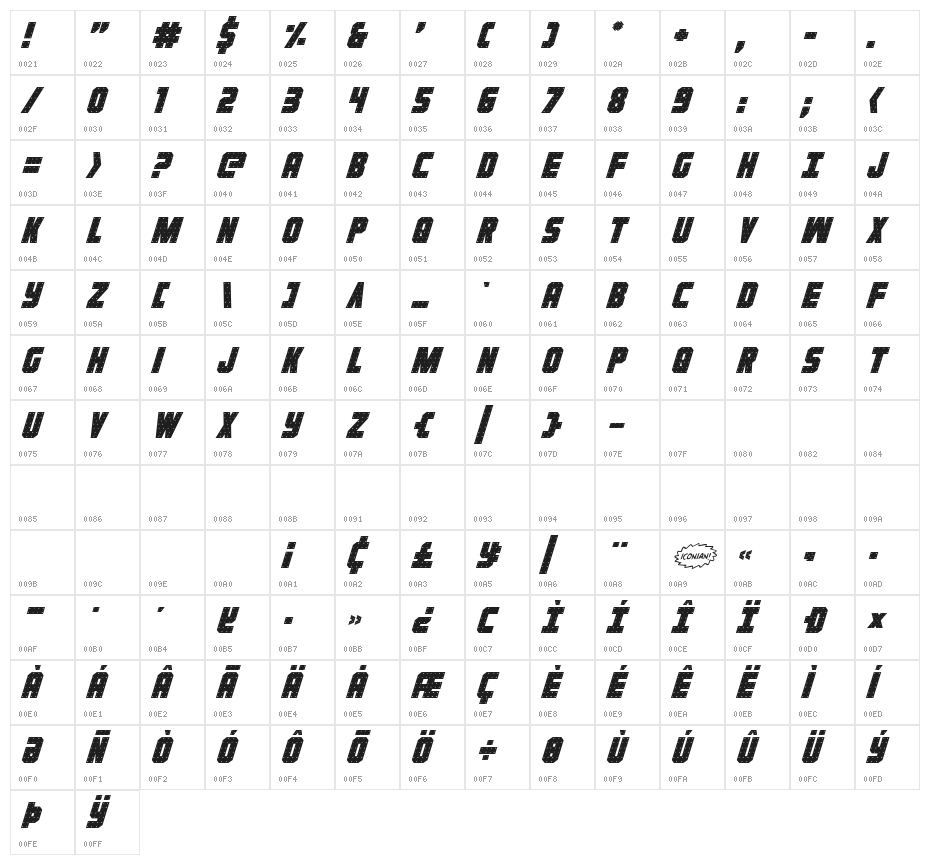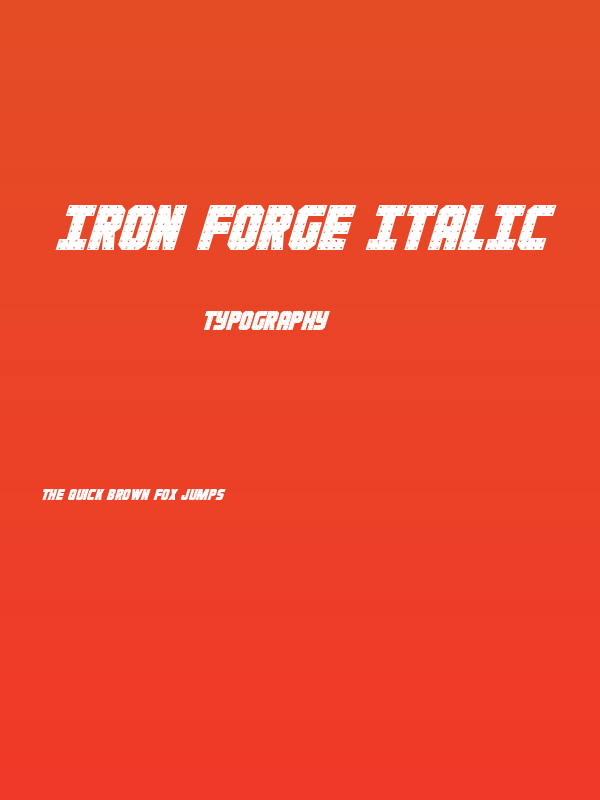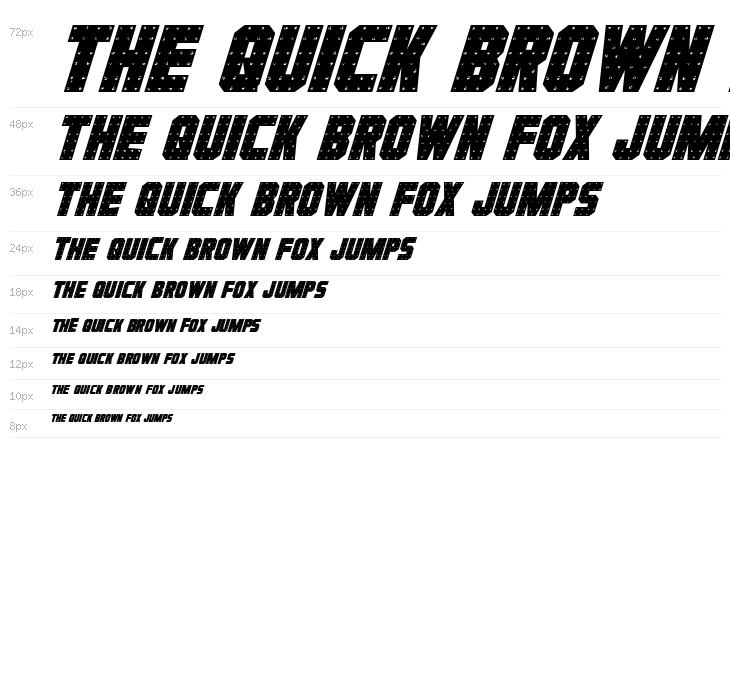
Iron Forge Italic Font
Iron Forge Italic Description
This font features a bold and dynamic design with a distinct italic slant, giving it a sense of motion and energy. The characters are constructed with a blocky, geometric style, and are filled with a pattern of small, evenly spaced dots, adding a textured appearance. The uppercase and lowercase letters maintain a consistent weight, contributing to a cohesive look. The numerals and special characters follow the same design principles, ensuring uniformity across all glyphs. This font's unique style makes it stand out, ideal for projects that require a strong visual impact.
Proposed ProjectsIdeal for posters, sports branding, video game titles, and any project needing a bold, energetic typeface.